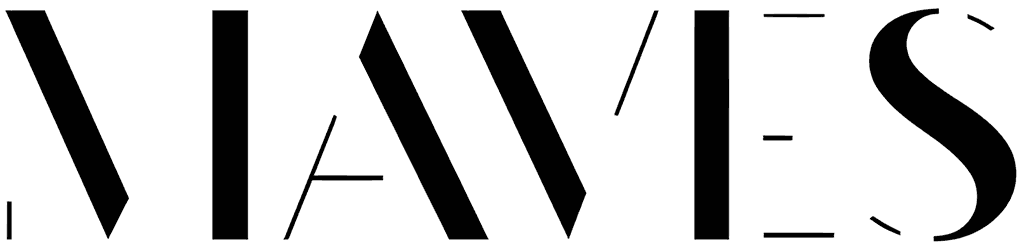
Maves Font
Maves is a spectacular sans serif font that dances along the baseline and carries a sense of professionalism, innovation, respect, formality, and momentum.
Its characters are not uniformly straight, they are formed of thin and thick parts that elevate the visibility of your graphic content, such as posters, website headers, flyers, logos, business cards, gift cards, and diplomas. Although it doesn’t contain lowercase letters, its advantages considerably outweigh the downsides.